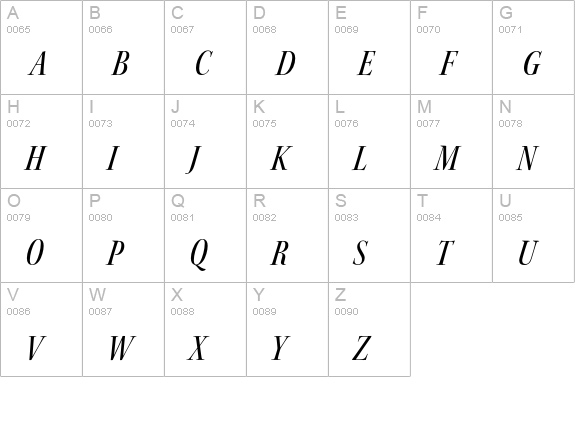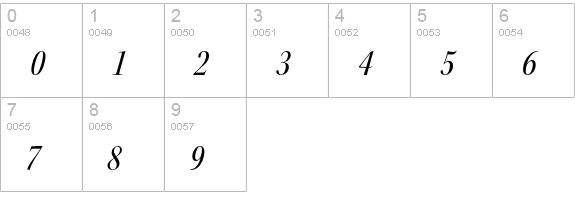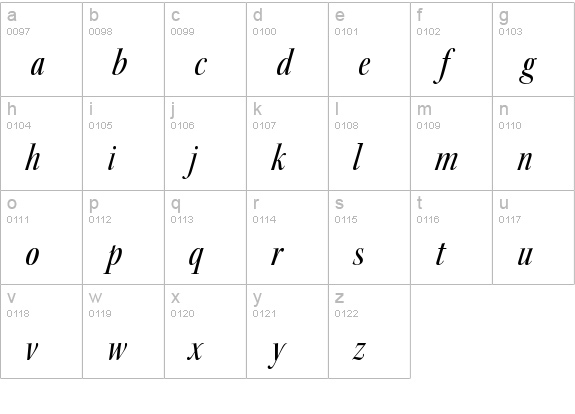
Kepler Std Medium Condensed Italic Display Font Details
Kepler Std Medium Condensed Italic Display is a balanced, medium-weight, condensed-width, italic variant in the Kepler typeface family \xE2\x80\x94 well suited to sub-headlines, navigation, and balanced editorial work.
Kepler Std Medium Condensed Italic Display font is a sleek and sophisticated typeface that exudes elegance and professionalism. Its condensed design allows for maximum impact and readability, making it the perfect choice for headlines, titles, and branding projects. The italicized variant adds a touch of flair and dynamism to your designs, giving them a modern and stylish edge. Whether you're creating a magazine spread, a website banner, or a promotional poster, Kepler Std Medium Condensed Italic Display font will make a lasting impression. This font's versatility is further enhanced by its medium weight, striking a balance between boldness and subtlety. It is easily legible even at smaller sizes, ensuring that your message comes across clearly and effectively. What sets Kepler Std Medium Condensed Italic Display font apart is not just its exceptional design, but also its accessibility. It is available for free download at FontsMarket.com, allowing designers, students, and enthusiasts to utilize its beauty and functionality without any cost. Don't miss out on this incredible opportunity to elevate your designs with the Kepler Std Medium Condensed Italic Display font. Download it for free today at FontsMarket.com and witness the transformative power it brings to your creative projects.